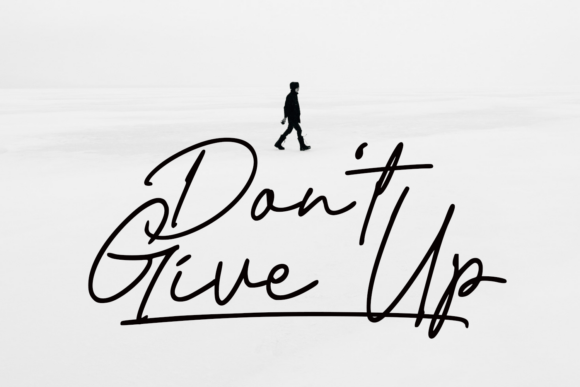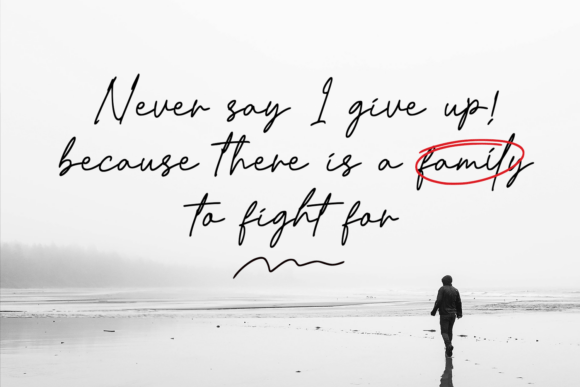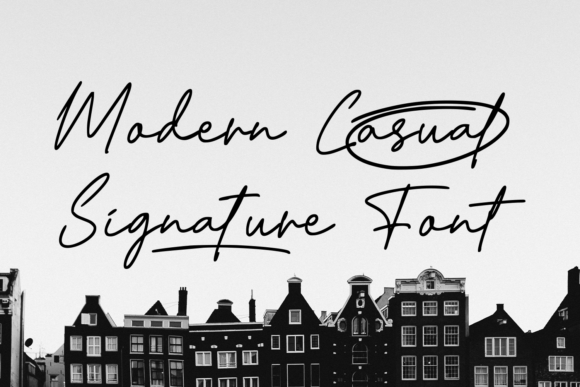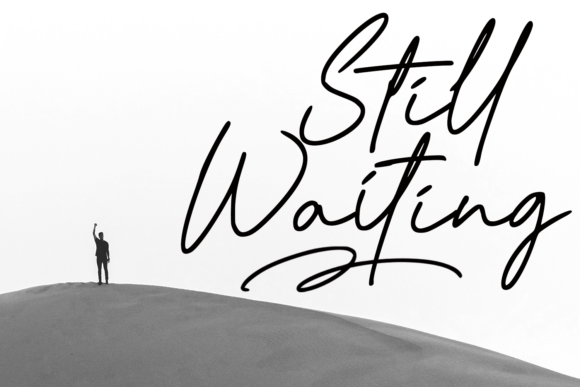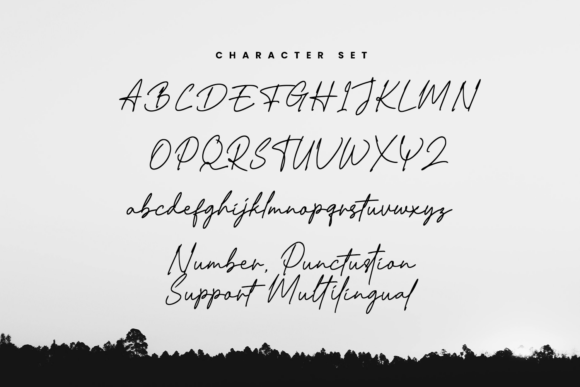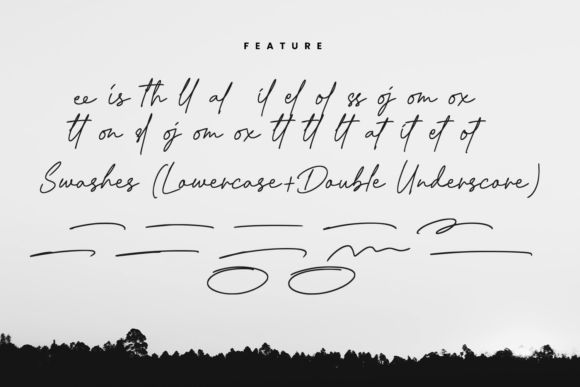
Discover the Charm of Bestone Font: Elevate Your Designs with a Personal Touch
In the world of typography, fonts play a crucial role in conveying messages, expressing emotions, and creating a lasting impression. For designers and crafters, finding the perfect font can be a daunting task. However, if you’re looking for a signature font that exudes simplicity, casual elegance, and a touch of natural handwriting, look no further than Bestone Font.
What is Bestone Font?
Bestone is a signature font that boasts a simple and casual monoline shape, reminiscent of natural handwriting. Its effortless charm makes it an ideal choice for a wide range of design projects, from branding and logos to wedding designs, social media posts, and product packaging.
Key Features of Bestone Font
- Simple and Casual Monoline Shape: Bestone’s monoline shape gives it a clean and minimalist look, making it perfect for designs that require a touch of elegance.
- Natural Handwriting Feel: The font’s natural, handwriting-like quality adds a personal touch to any design, making it perfect for projects that require a sense of warmth and approachability.
- Versatility: Bestone is a versatile font that can be used for a wide range of design projects, including branding, logos, wedding designs, social media posts, advertisements, product packaging, and more.
Use Cases for Bestone Font
Bestone’s versatility makes it an excellent choice for various design projects. Here are some use cases where Bestone Font shines:
- Branding Projects: Create a lasting impression with Bestone’s unique and elegant font, perfect for logos, business cards, and letterheads.
- Wedding Designs: Add a touch of romance and whimsy to your wedding designs, including invitations, stationery, and wedding cakes.
- Social Media Posts: Elevate your social media game with Bestone’s clean and elegant font, perfect for posts, stories, and captions.
- Product Packaging: Make your product stand out with Bestone’s unique font, ideal for labels, packaging, and product designs.
- Photography: Add a professional touch to your photography with Bestone’s elegant font, perfect for watermarks and photo captions.
Why Choose Bestone Font?
With so many fonts available, why choose Bestone Font? Here are a few reasons why Bestone stands out:
- Unique and Elegant: Bestone’s simple and casual monoline shape makes it a unique and elegant font that will set your designs apart.
- Easy to Read: Bestone’s clean and minimalist design makes it easy to read, even at small font sizes.
- Highly Versatile: Bestone can be used for a wide range of design projects, making it a valuable addition to any designer’s font library.
In conclusion, Bestone Font is a signature font that offers a perfect blend of simplicity, elegance, and natural handwriting. Its versatility and unique features make it an excellent choice for designers and crafters looking to elevate their designs with a personal touch. Whether you’re working on branding projects, wedding designs, social media posts, or product packaging, Bestone Font is sure to impress.